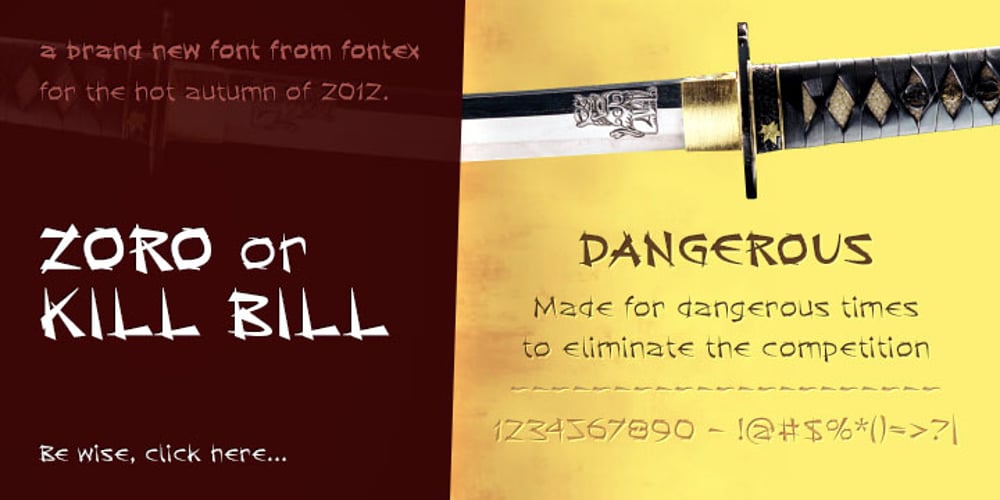
AJSHA Font Family was designed by Dusko Joksimovic and published by Fontex. AJSHA contains 2 styles and family package options. AJSHA font, even though being our newest font, is inspired by ancient Japanese and Chinese culture, eastern style of life of about 5000 years before present day, when honor and a good sword were respected. Japanese special sword Katana is known to be handcrafted to be extremely sharp and deadly. Therefore, the shapes of the AJSHA font accompanies the moves of a Katana master when he uses the power of his sword. The font comes in two styles, light and medium. Medium is a bit bolder style while the exact bold or strong version lacks due to the fact that the font’s lines needed to be sharp as a swordsman’s cuts. We expect this font to be a great asset tool for top-notch designer companies that put quality before everything else.